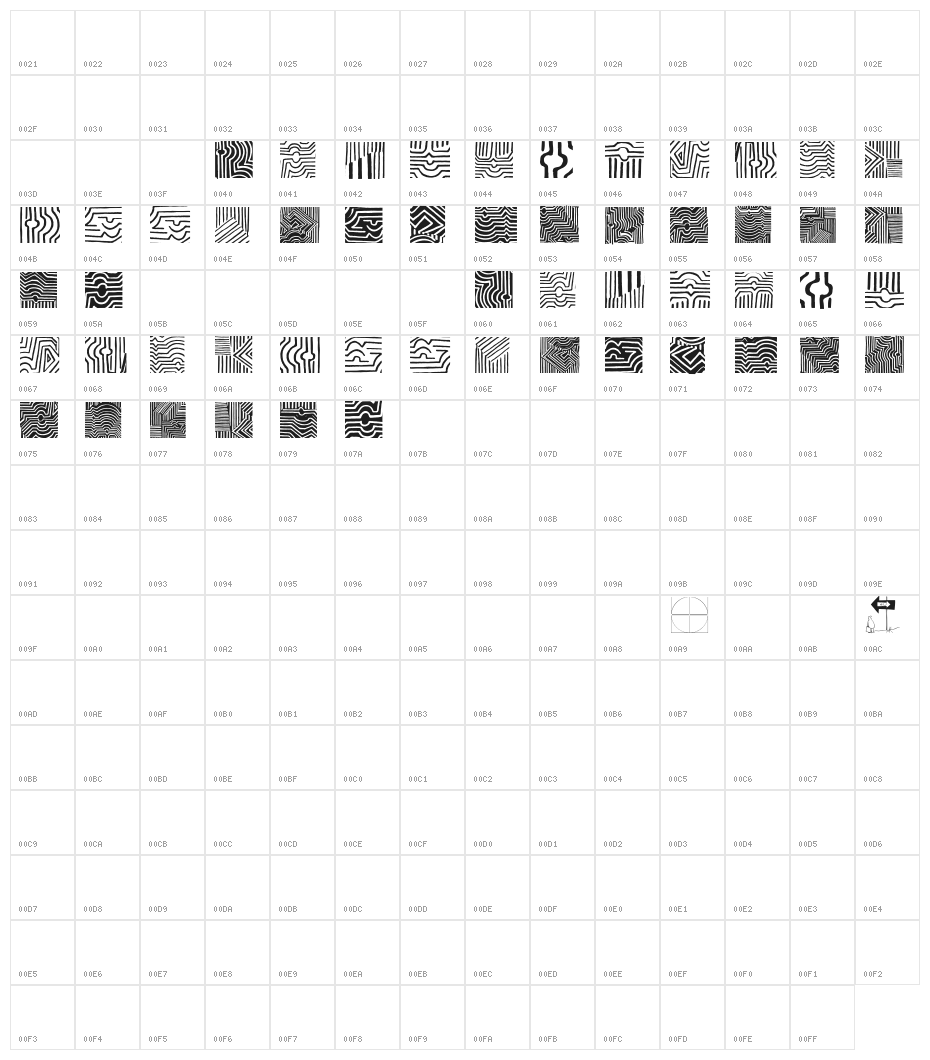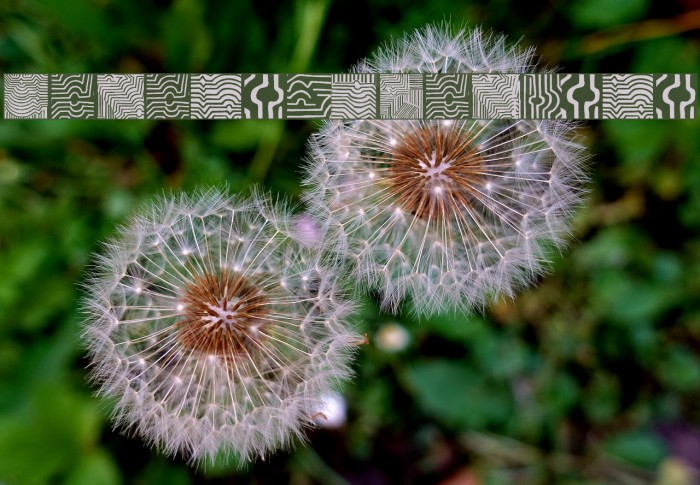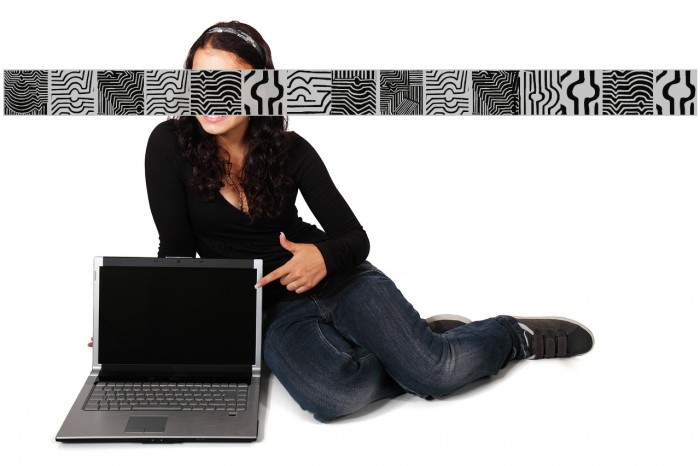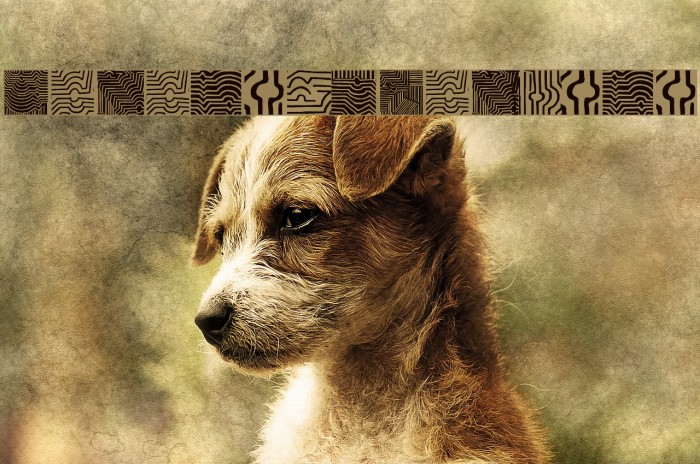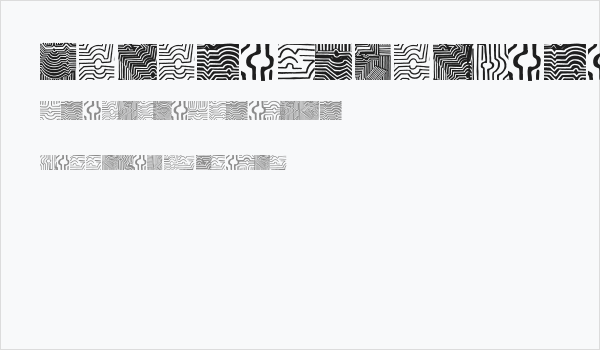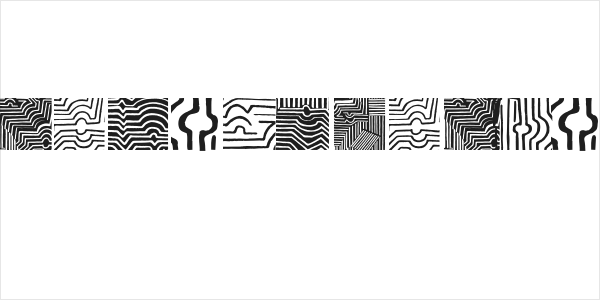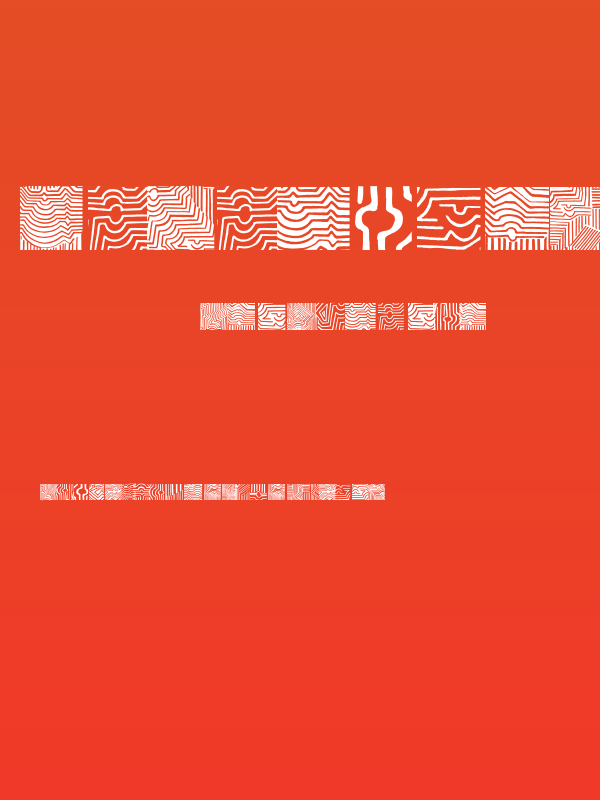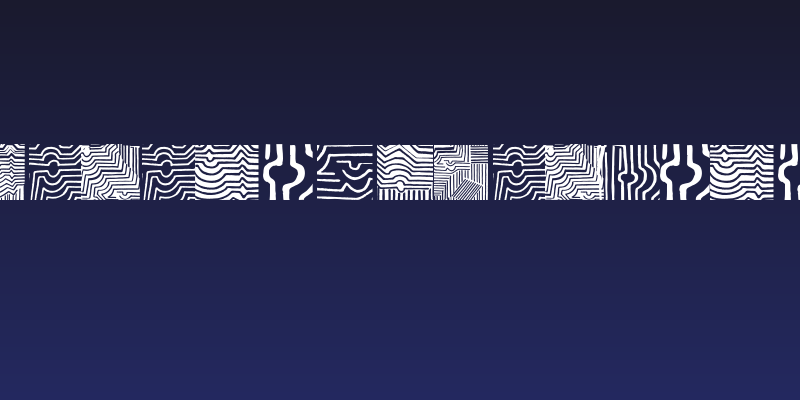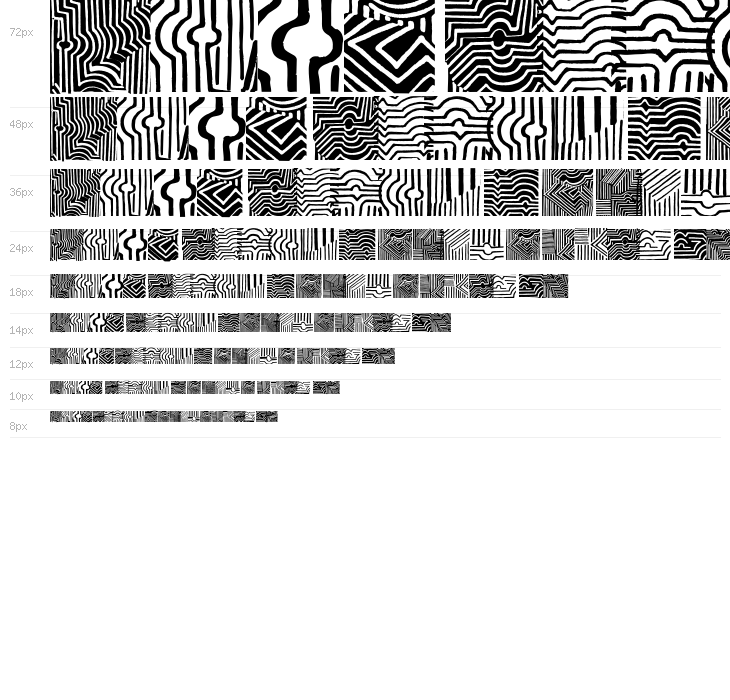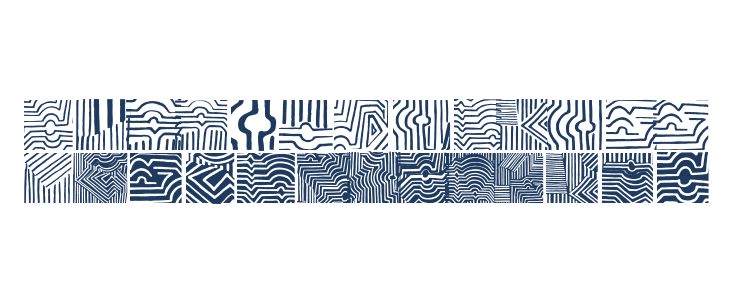
VasarelyWasHere Font
VasarelyWasHere Description
This font is an artistic and abstract representation of characters, featuring intricate line patterns and optical illusions. Each character is uniquely designed with a maze-like structure, creating a visually stimulating effect. The high contrast between black and white enhances the complexity and depth of the patterns, making it a standout choice for creative projects. The font is not meant for readability but rather for artistic expression, capturing attention with its bold and dynamic style.
| Use Case | Logos, Artistic displays, Experimental design |
| Proposed Projects | Ideal for artistic posters, album covers, modern art installations, and experimental graphic design projects. |